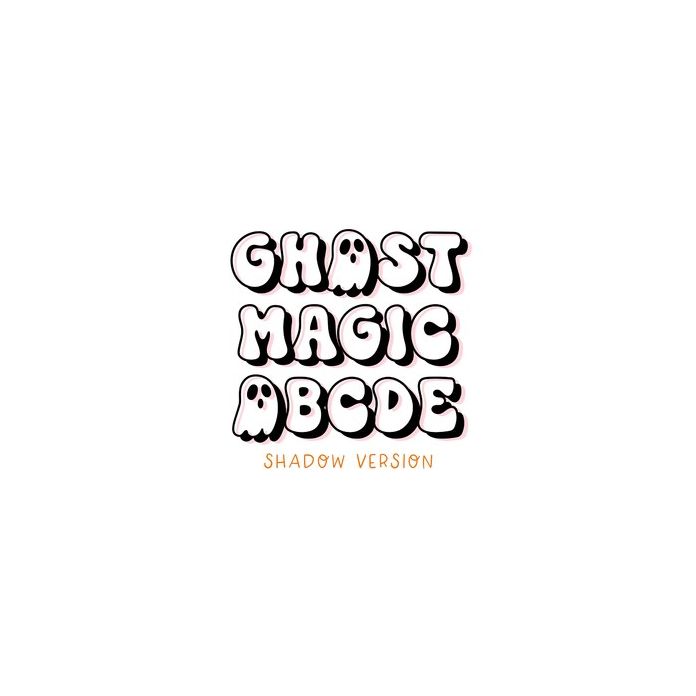
Ghost Magic Shadow is a cute outline shadow Halloween font. Layer with our regular version to customize the inside of the letter with colors. You can also check out our pre-made color font version.